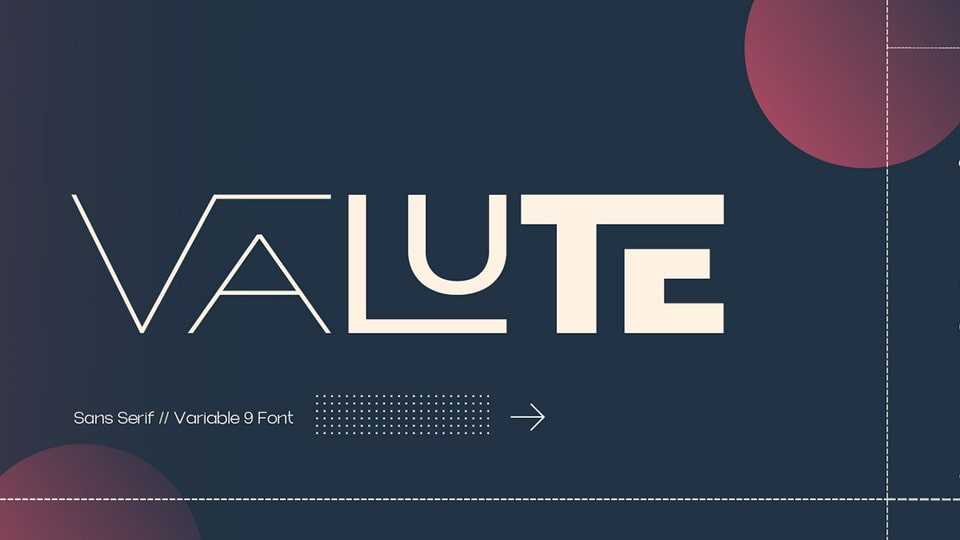
Download Valute font, a custom display typeface, but at first glance it looks very mischievous. Very thin contrasting lines are very legible with heavy use of paragraph text.